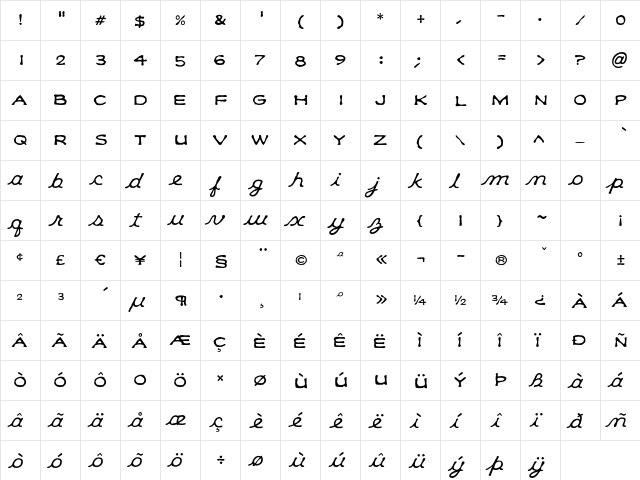
Klee CapScript Regular
Design Context for Klee CapScript Typeface
Klee CapScript flows with the natural rhythm of handwritten lettering, making it ideal for designs that call for warmth and personal expression.
Font Pairing: Combine Klee CapScript with a simple geometric sans for maximum contrast — the tension between flowing curves and clean structure is a classic typographic pairing.
Pro Tip: Pair Klee CapScript with a clean sans-serif for supporting text. The contrast between fluid script and geometric structure creates an elegant typographic hierarchy.